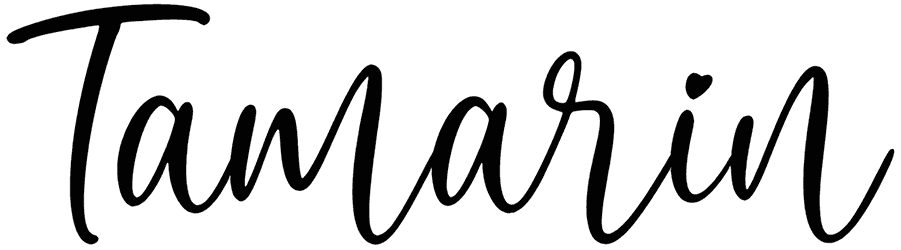
Tamarin Font
The Tamarin font is a lovely handwritten font that is ideal for giving your designs a more individual feel when you want to convey a sense of warmth and friendliness. All your projects will look more polished with this spring font‘s beautiful script style.